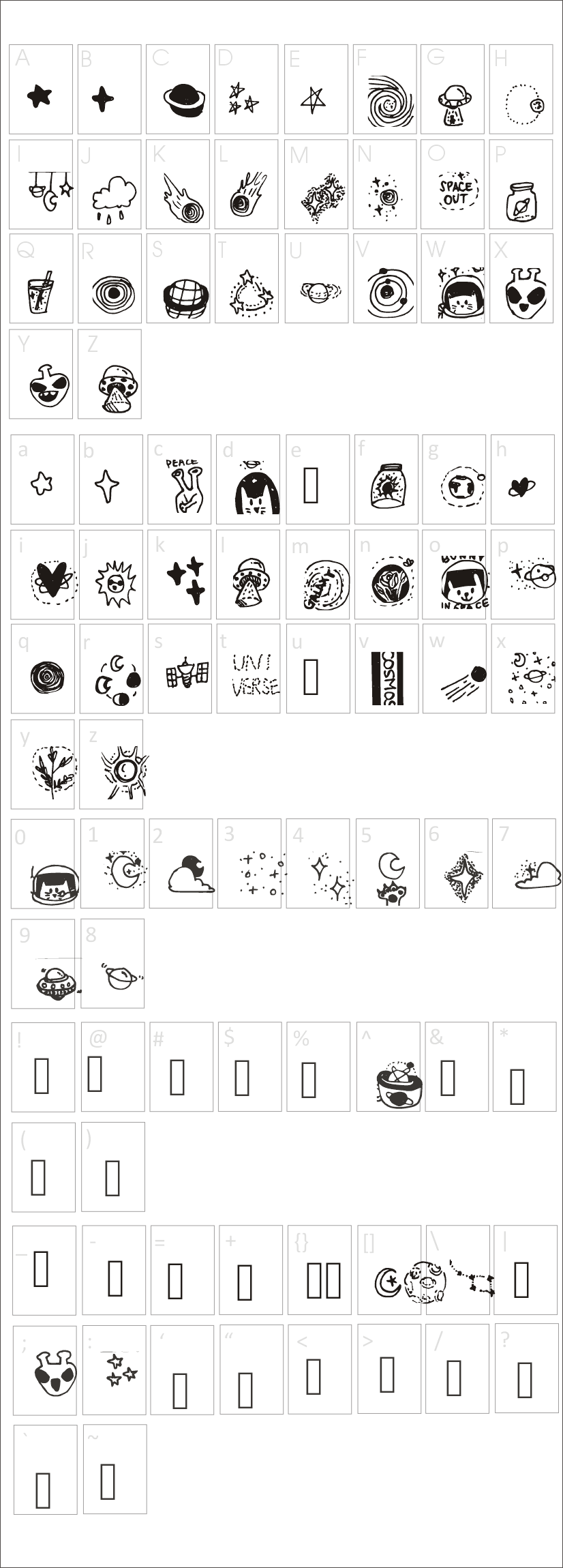
| Name | Galaxy Dingbats Font |
| Category | Dingbats, Icons, Decorative |
Galaxy Dingbats is a unique and captivating font filled with celestial symbols and astronomical elements. This font offers a wide range of symbols, including stars, planets, comets, galaxies, and other astronomical phenomena.
Key Features Of Galaxy Dingbats:
- Celestial Symbols: Galaxy Dingbats features a vast collection of symbols related to astronomy and space exploration.
- Unique and Creative: The font’s symbols are creatively designed and offer a unique and visually appealing way to express ideas and concepts.
- Versatile: Galaxy Dingbats can be used in a variety of applications, including graphic design, web design, and personal projects.
- Thematic: The font’s celestial theme makes it perfect for projects related to space, science fiction, or astronomy.
Usage Examples:
- Graphic Design: Galaxy Dingbats can be used to create visually stunning designs for posters, flyers, and other marketing materials.
- Web Design: The font can be used to add a unique and creative touch to websites, blogs, and online portfolios.
- Personal Projects: Galaxy Dingbats is ideal for personal projects related to space, astronomy, or science fiction.
- Social Media: Use the font to create eye-catching social media graphics and posts.